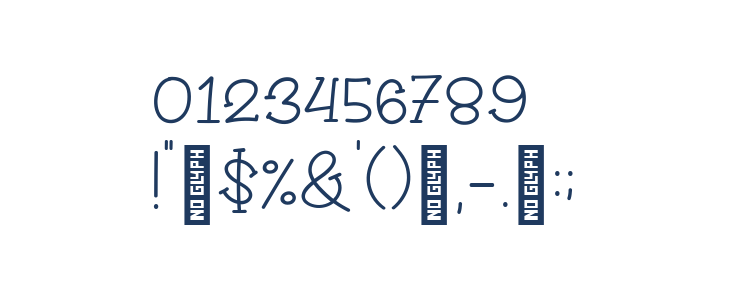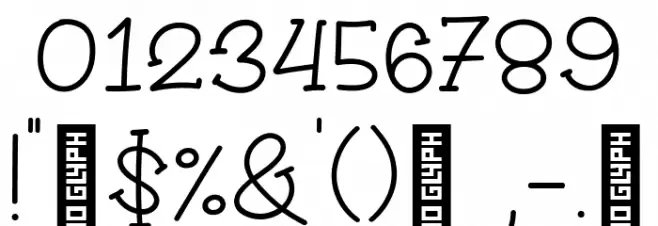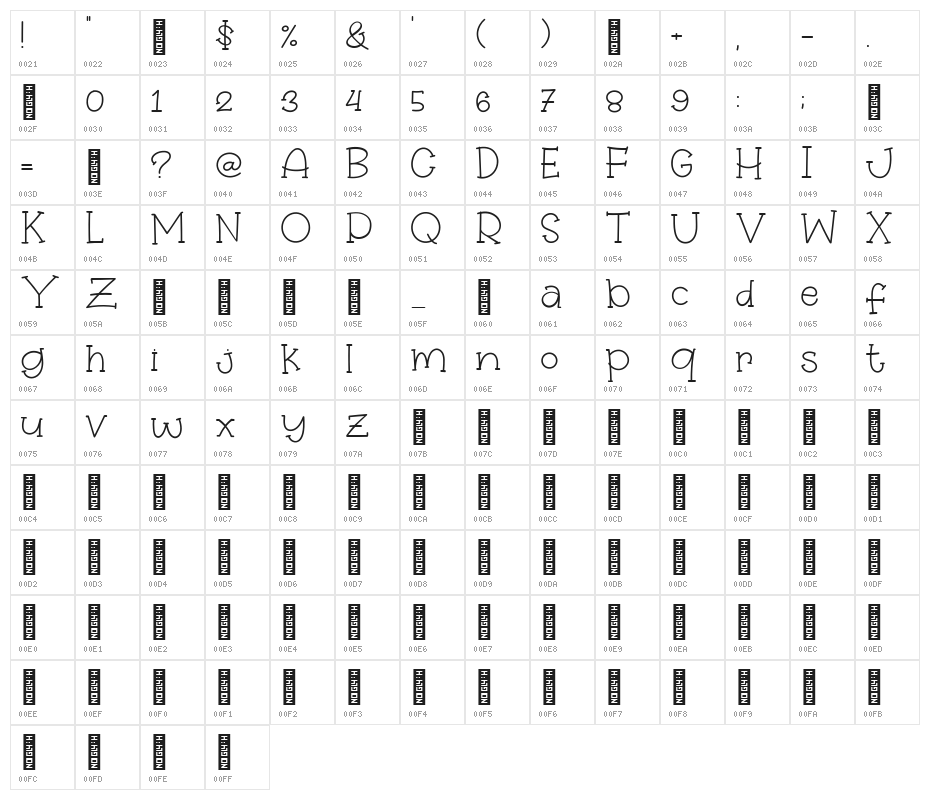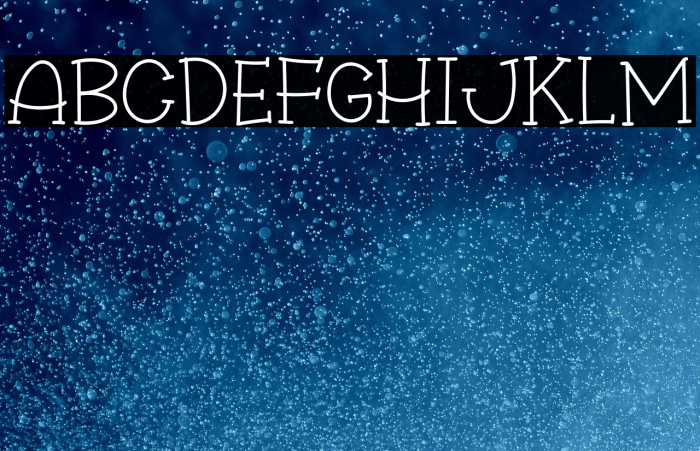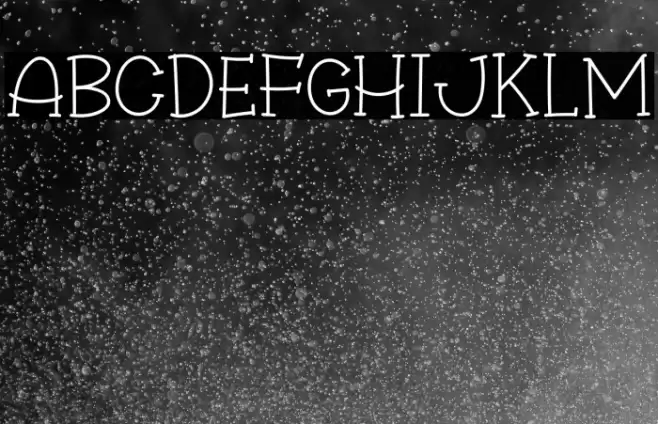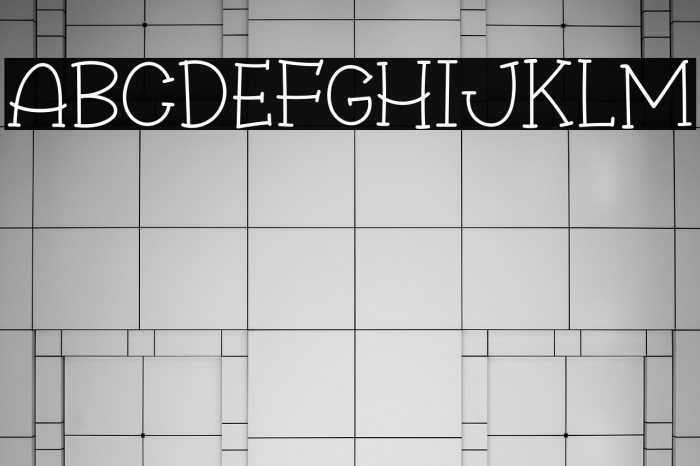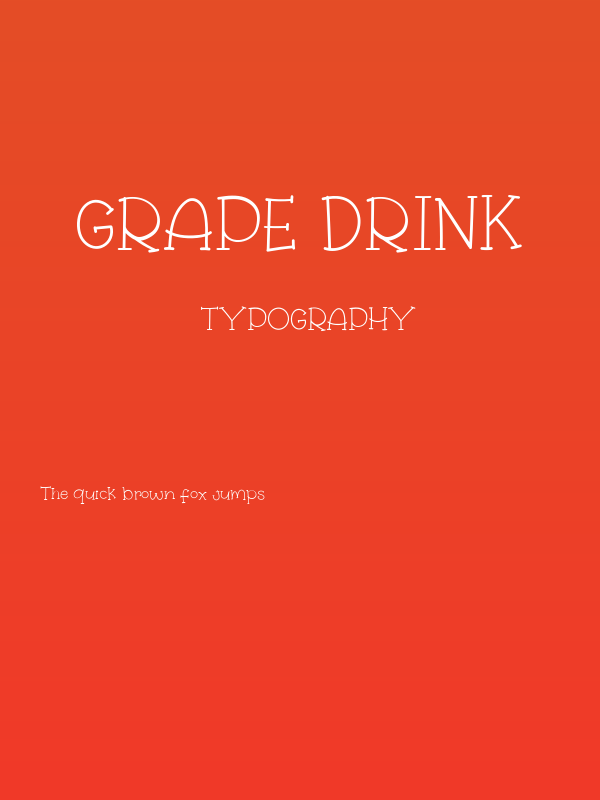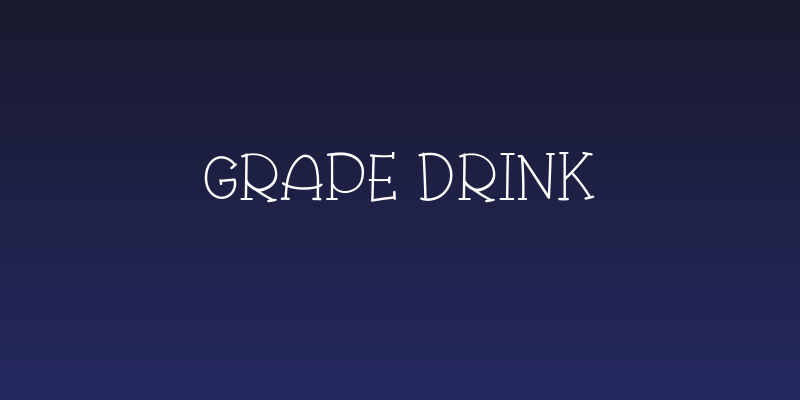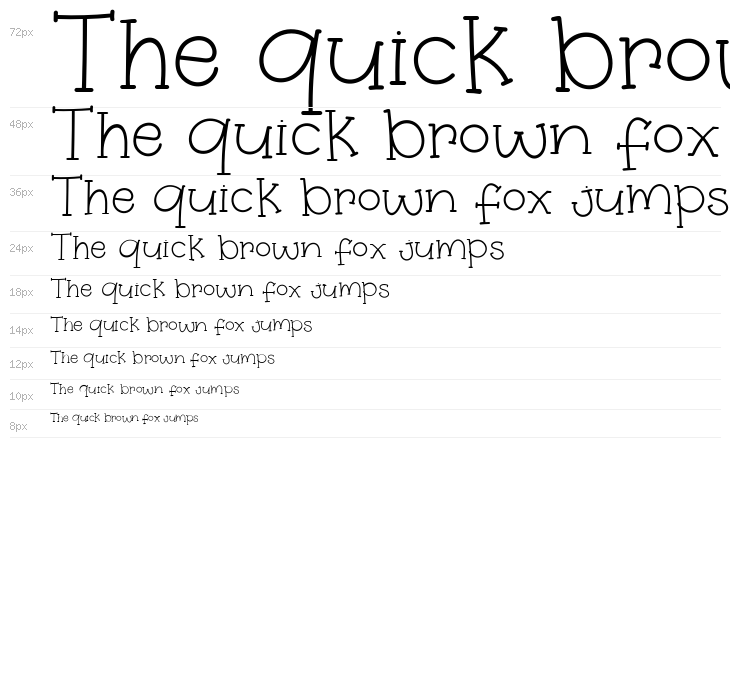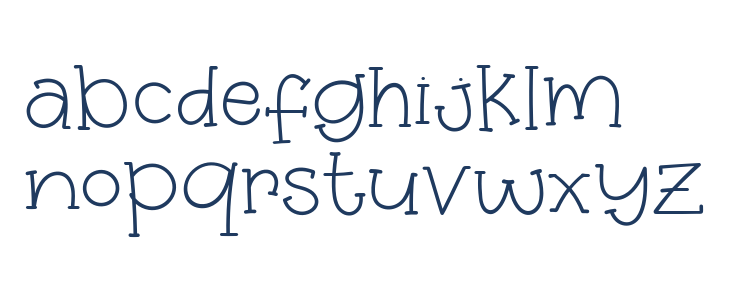
Grape Drink Font
Grape Drink Description
This playful and whimsical font features a hand-drawn aesthetic with a casual and friendly appearance. The characters are slightly irregular, adding a touch of charm and personality. The uppercase letters have a quirky, uneven baseline, while the lowercase letters maintain a consistent flow. The numerals are distinct and easy to read, with a unique style that complements the overall design. Special characters are creatively designed, enhancing the font's playful nature. This font is perfect for projects that require a fun and informal touch.
| Proposed Projects | Ideal for children's books, greeting cards, playful branding, and creative posters. |